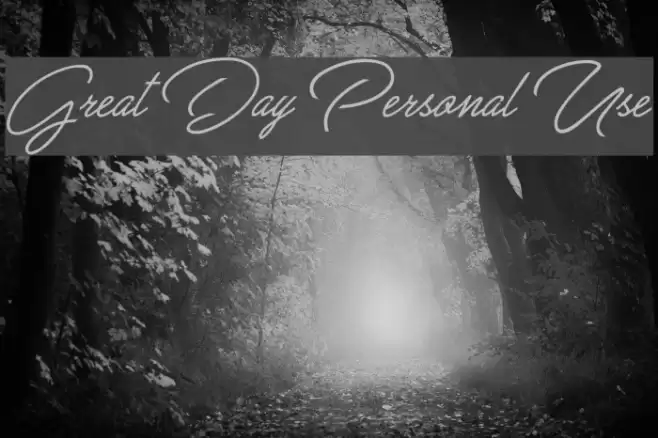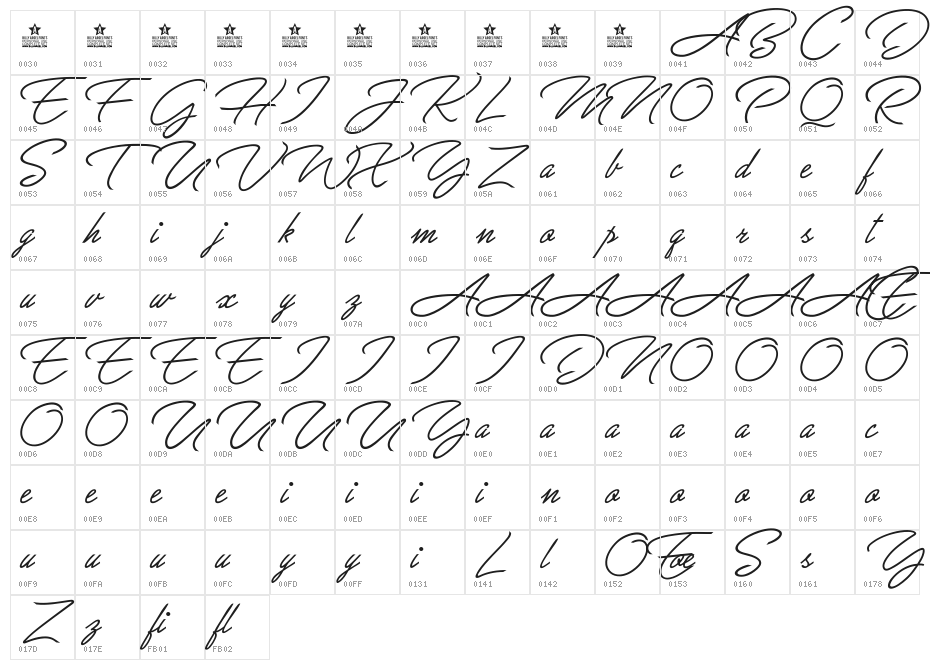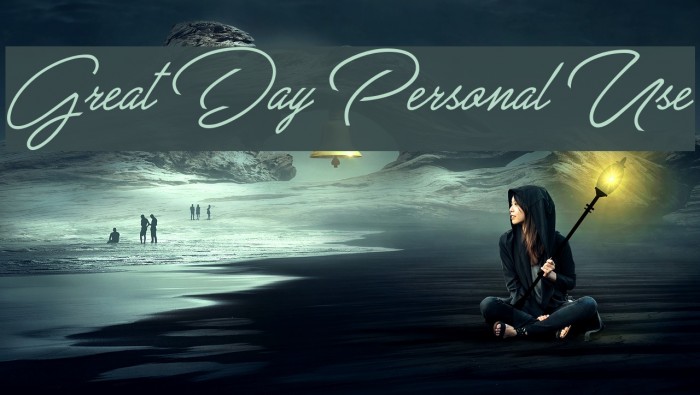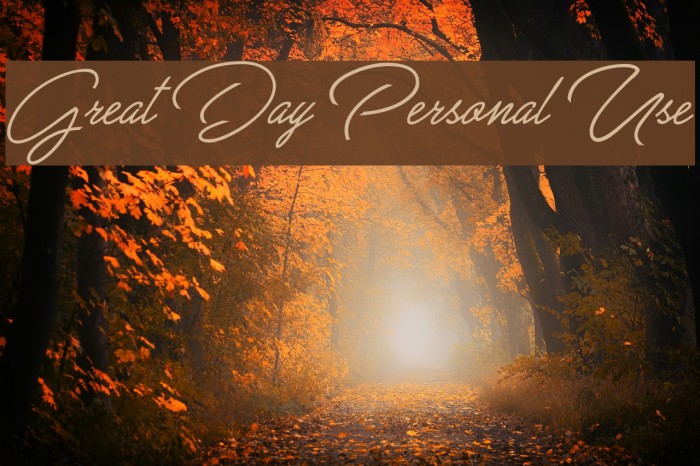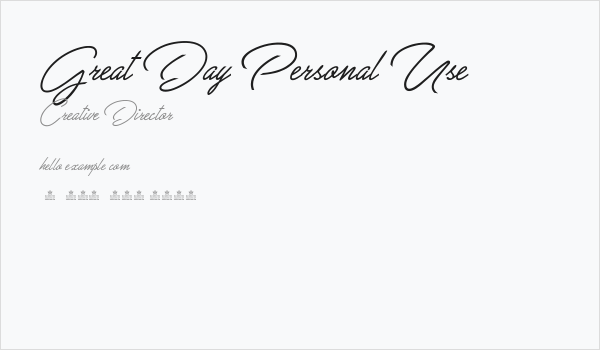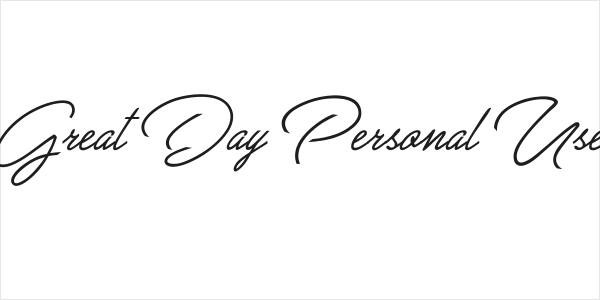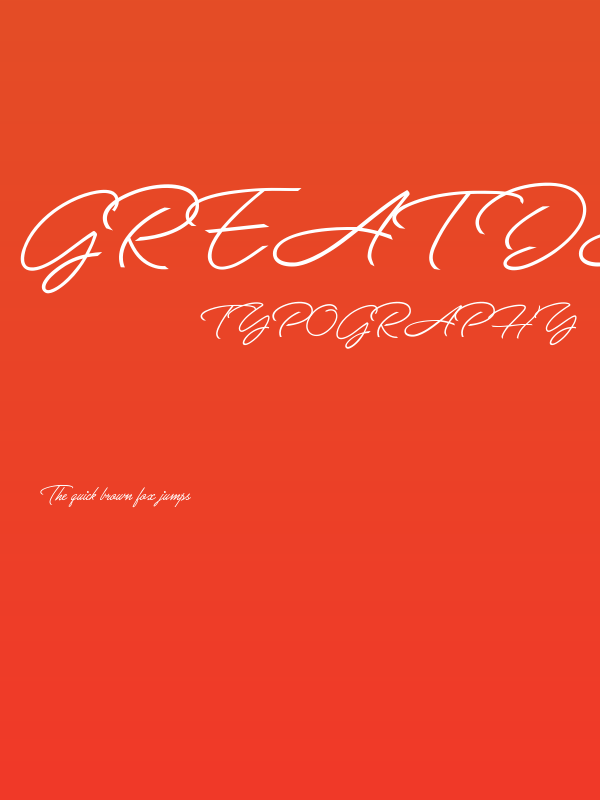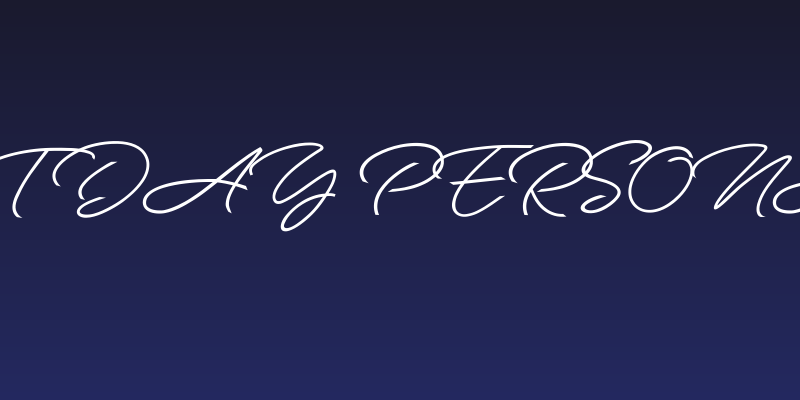
Great Day Personal Use Font
Great Day Personal Use Description
This font features a flowing, cursive style that exudes elegance and sophistication. The uppercase letters are gracefully connected, while the lowercase letters maintain a consistent slant and fluidity. The strokes are smooth and continuous, giving the text a handwritten appearance. The font's design is both classic and modern, making it versatile for various applications. The characters are well-spaced, ensuring readability while maintaining an artistic flair. The font includes a full set of uppercase and lowercase letters, numbers, and a selection of special characters, making it suitable for a wide range of uses.
A flowing, elegant cursive font with a classic yet modern appeal from Script fonts.
- Proposed Projects: Ideal for wedding invitations, greeting cards, personal branding, and elegant logos.
- Overall Style: Classic
- Use Case: Logos, Invitations, Personal Branding